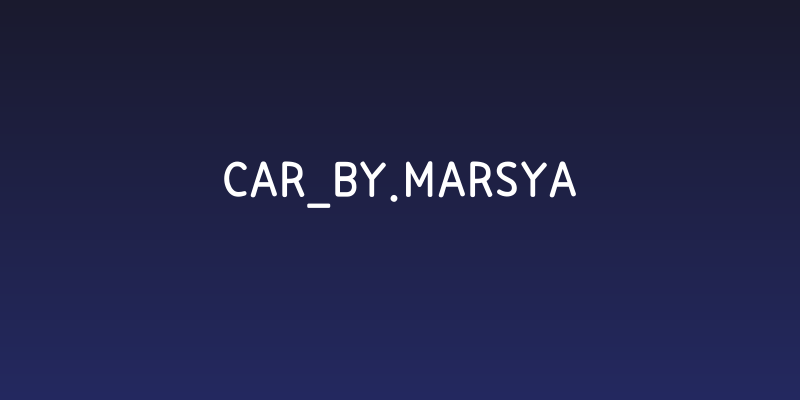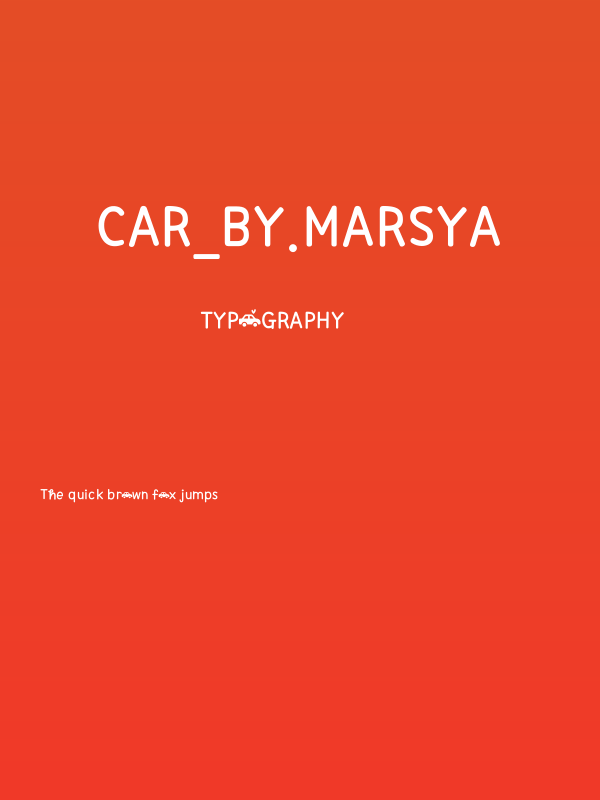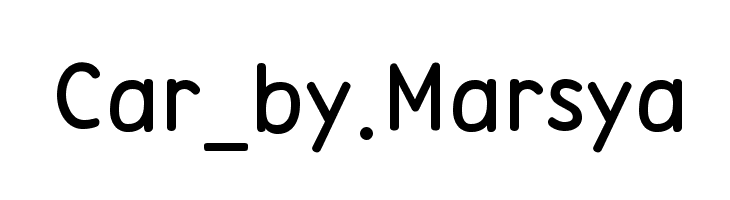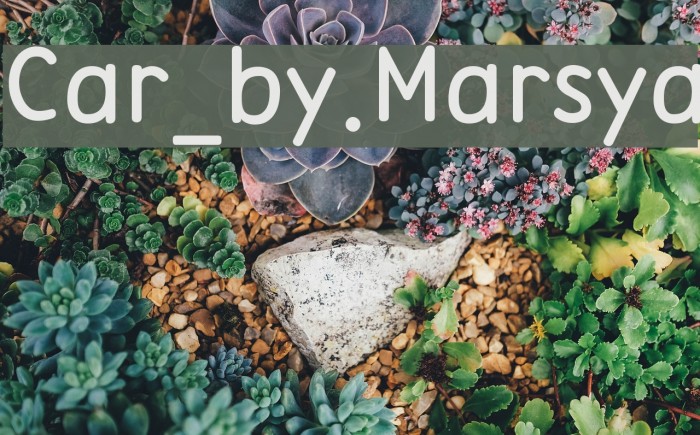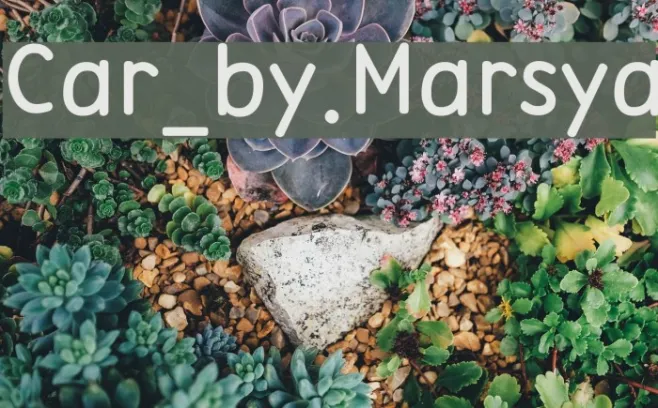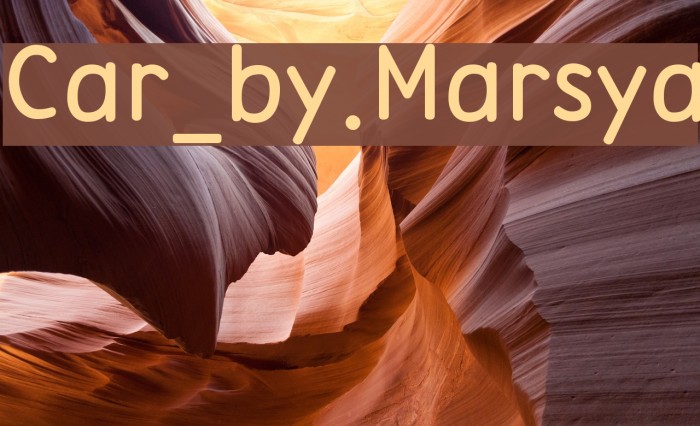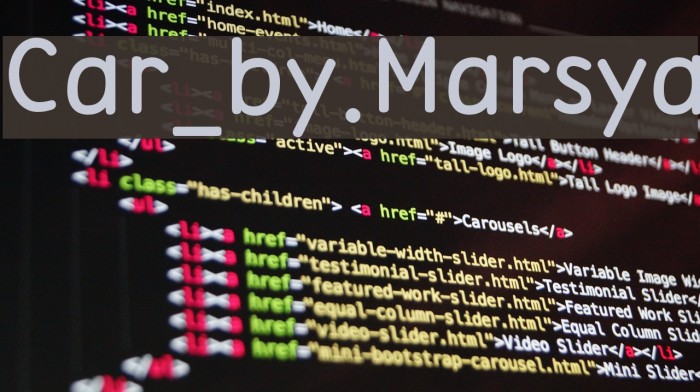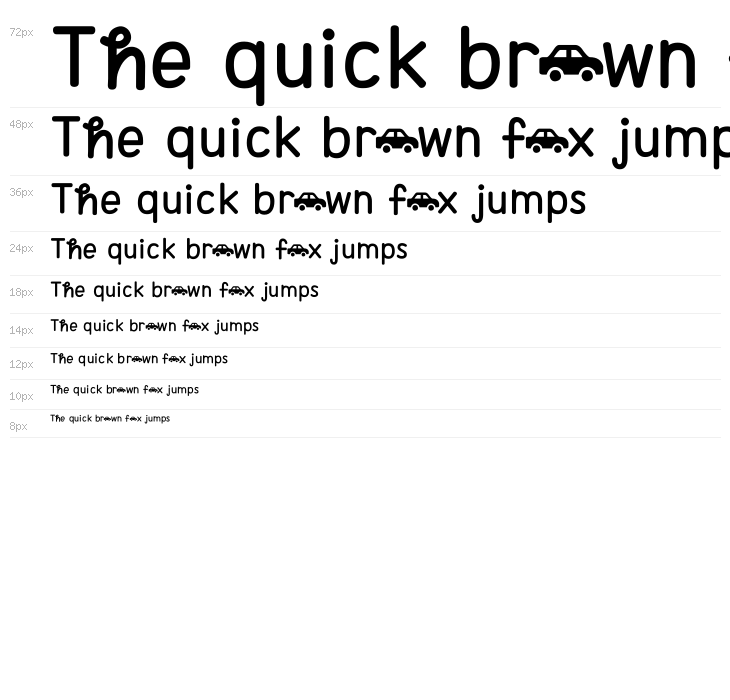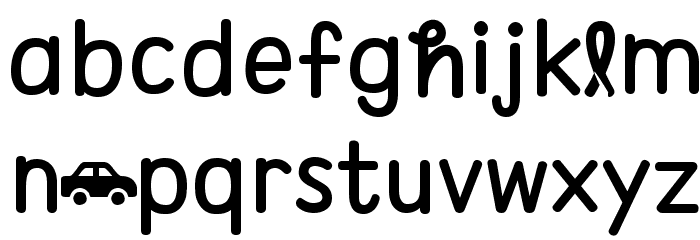
Car_by.Marsya Font
Car_by.Marsya Description
This playful and whimsical font features a unique design where certain letters are creatively integrated with car motifs, adding a fun and distinctive element to the typeface. The characters are rounded and smooth, providing a friendly and approachable appearance. The font maintains a consistent stroke width, contributing to a clean and modern look. The inclusion of car graphics within the letters adds a decorative touch, making it ideal for projects that require a lighthearted and imaginative style. The numerals and special characters are designed to match the overall aesthetic, ensuring a cohesive look across all text elements.
| Use Case | Headlines, Logos, Creative designs |
| Proposed Projects | Ideal for children's books, automotive-themed designs, playful branding, and creative advertising. |